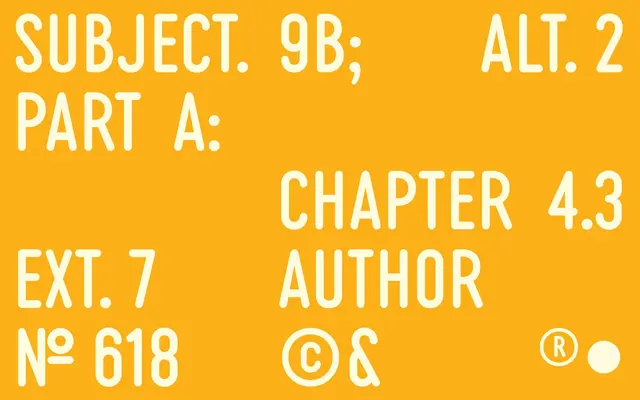
BWord
Typespec · Matt Willey · 2020
An all-caps condensed sans by Matt Willey, featuring monolinear strokes and rounded terminals, released as part of the BuyFontsSaveLives charity initiative.
Designed by Matt Willey and donated to the BuyFontsSaveLives charity collection, all proceeds go to Cancer Research UK and Macmillan Cancer Support. The two-weight family, Regular and Bold, uses condensed letterforms with monolinear strokes and overtly rounded terminals, giving it a distinctive display character. Version 2.0 was released in late 2020 following Willey's appointment as a partner at Pentagram New York.
An all-caps condensed sans with monolinear strokes and rounded terminals, designed for display use. The overtly stylised terminals and condensed proportions place it firmly in the display category rather than general-purpose sans.